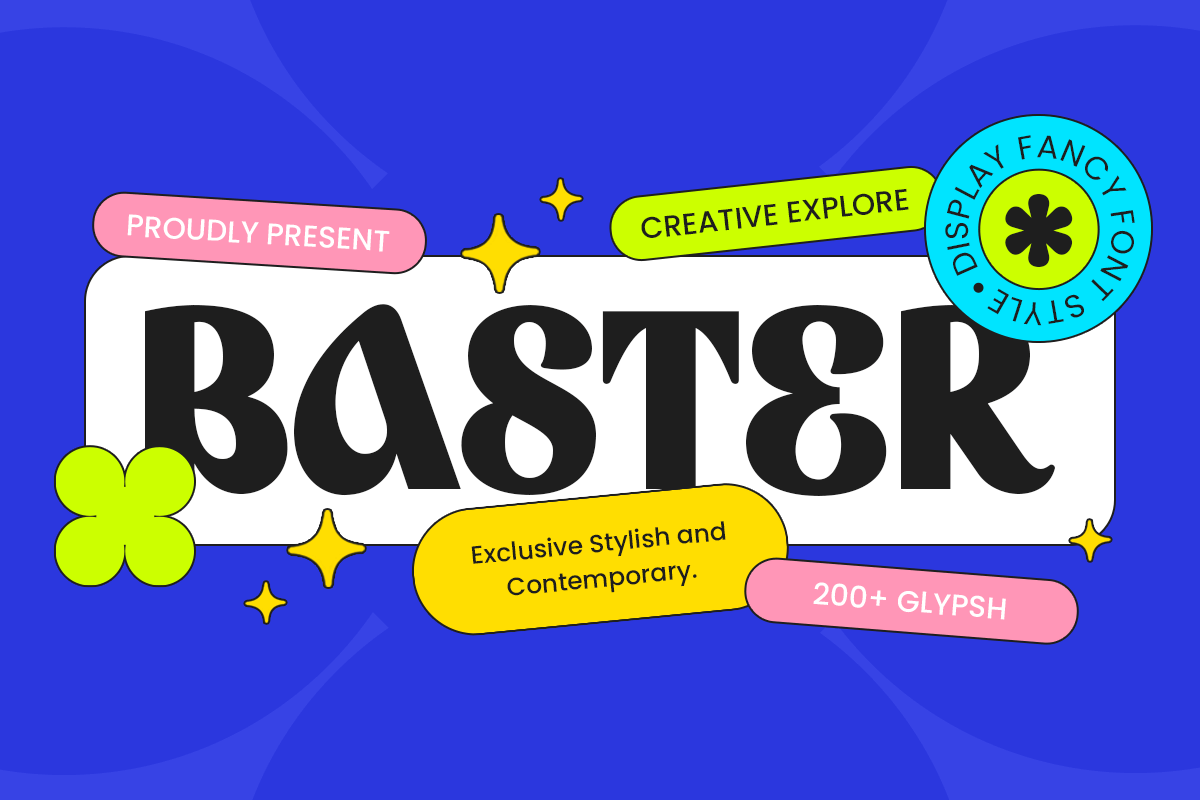
Baster
-Display Fancy FontBaster - Display Fancy Font
Baster is a fancy and stylish display font designed to bring creativity, elegance, and uniqueness to your designs. Its decorative letterforms and artistic flow make it the ideal choice for luxury branding, fashion magazines, product packaging, high-end invitations, and creative headlines.
With a trendy and modern aesthetic, Baster font combines bold curves and sophisticated details, ensuring a strong visual impact while maintaining readability and charm. Whether you're working on logo designs, editorial layouts, or eye-catching advertisements, this font adds a touch of exclusivity and artistic flair to any project.
Stand out with Baster font, a font that blends elegance, creativity, and high-end style into one striking typeface.
Baster Font - Display Fancy Font Features:
Unique and stylish display typography
Perfect for branding, fashion, and luxury designs
Punctuation, numbers, and symbols included
Uppercase and lowercase letters
OpenType features for creative typography
Create stunning, fashionable, and elegant designs with Baster font—the perfect fancy display font for high-impact visuals.